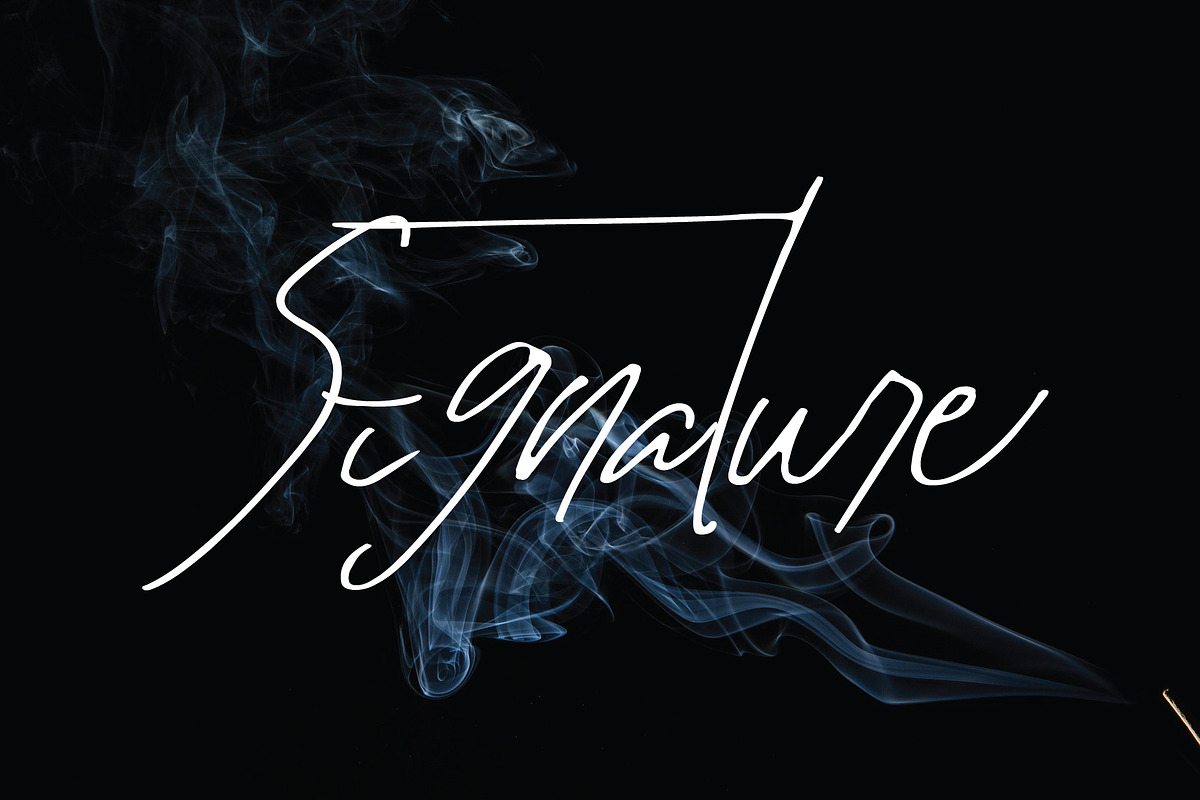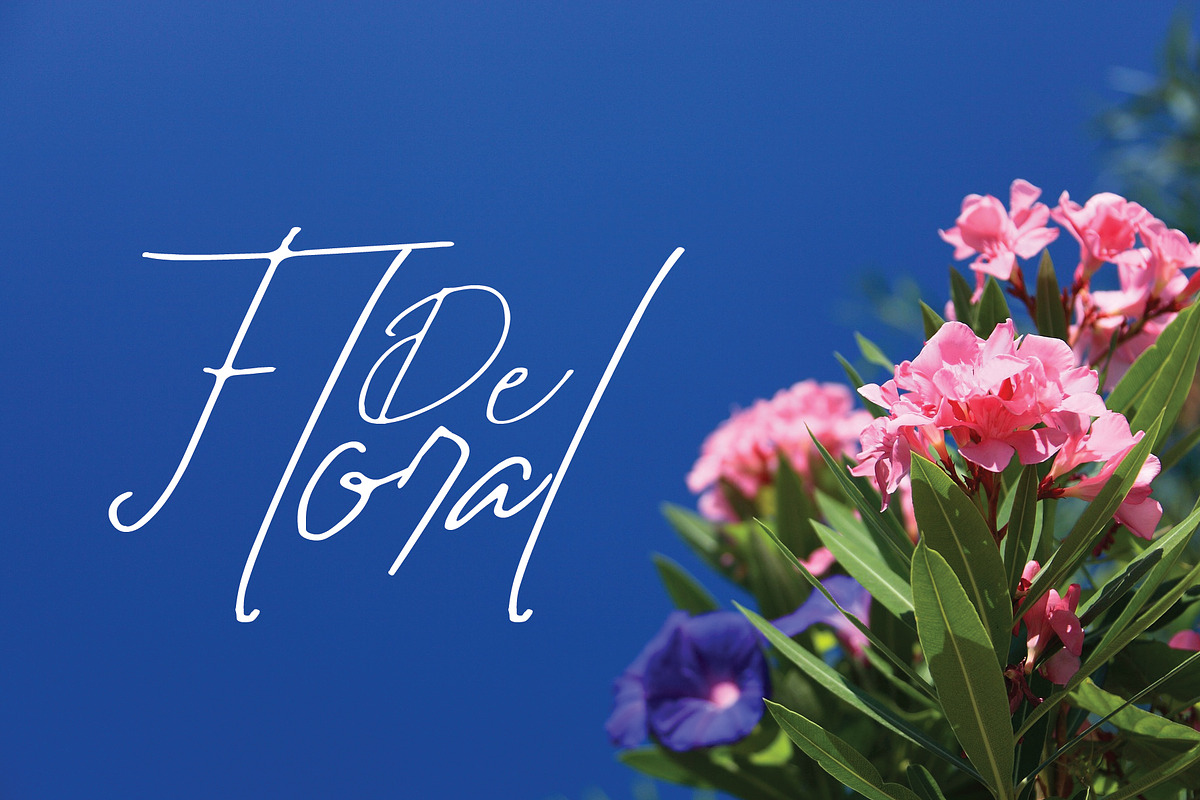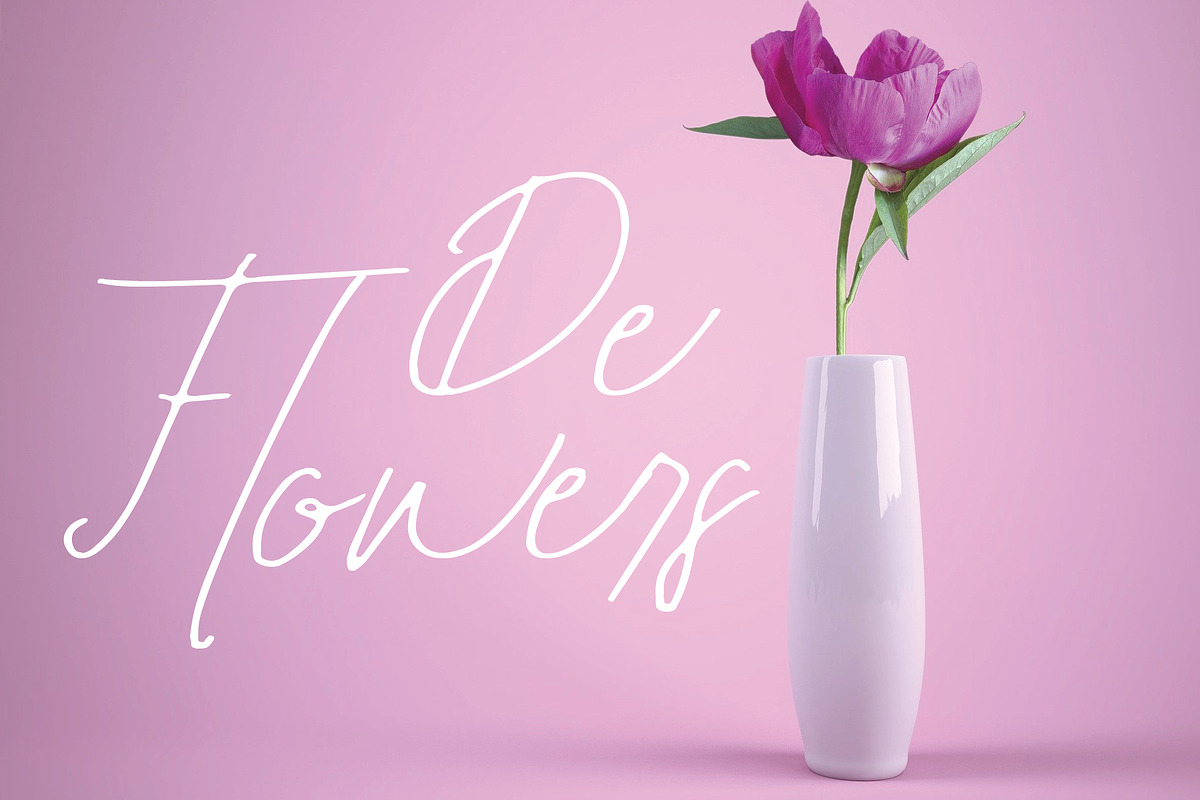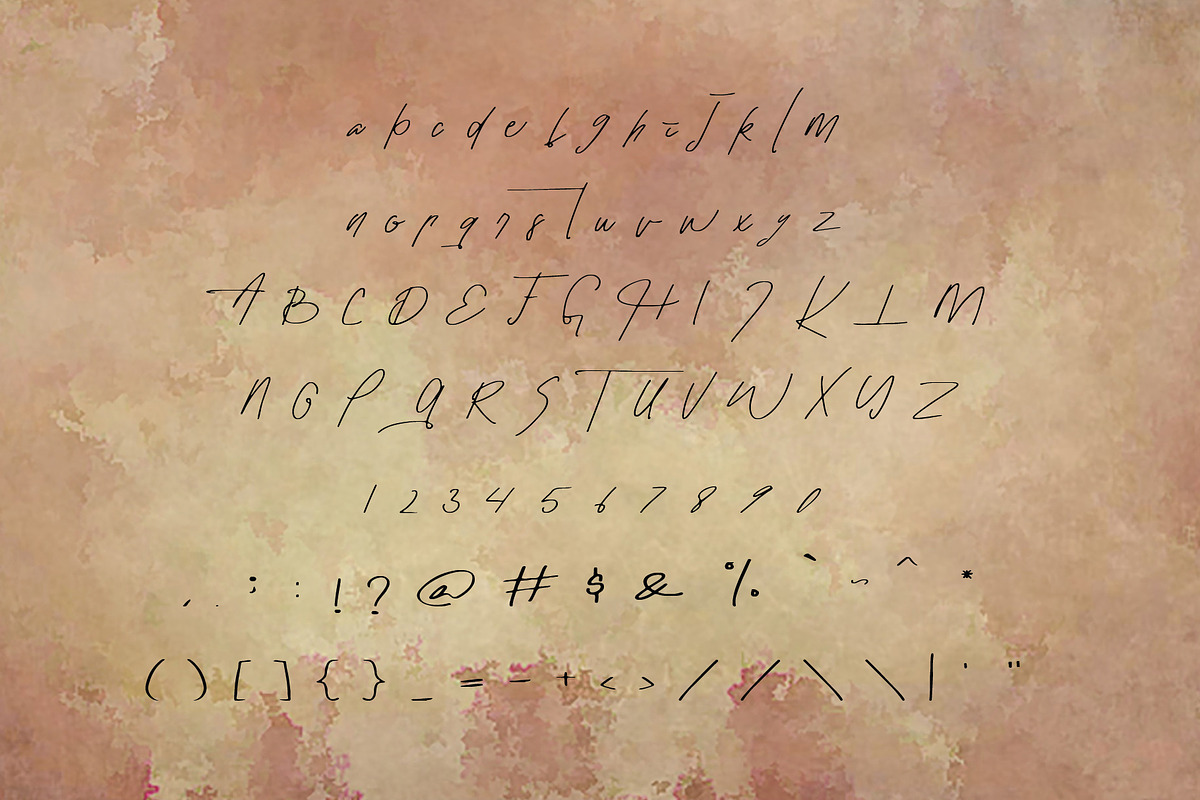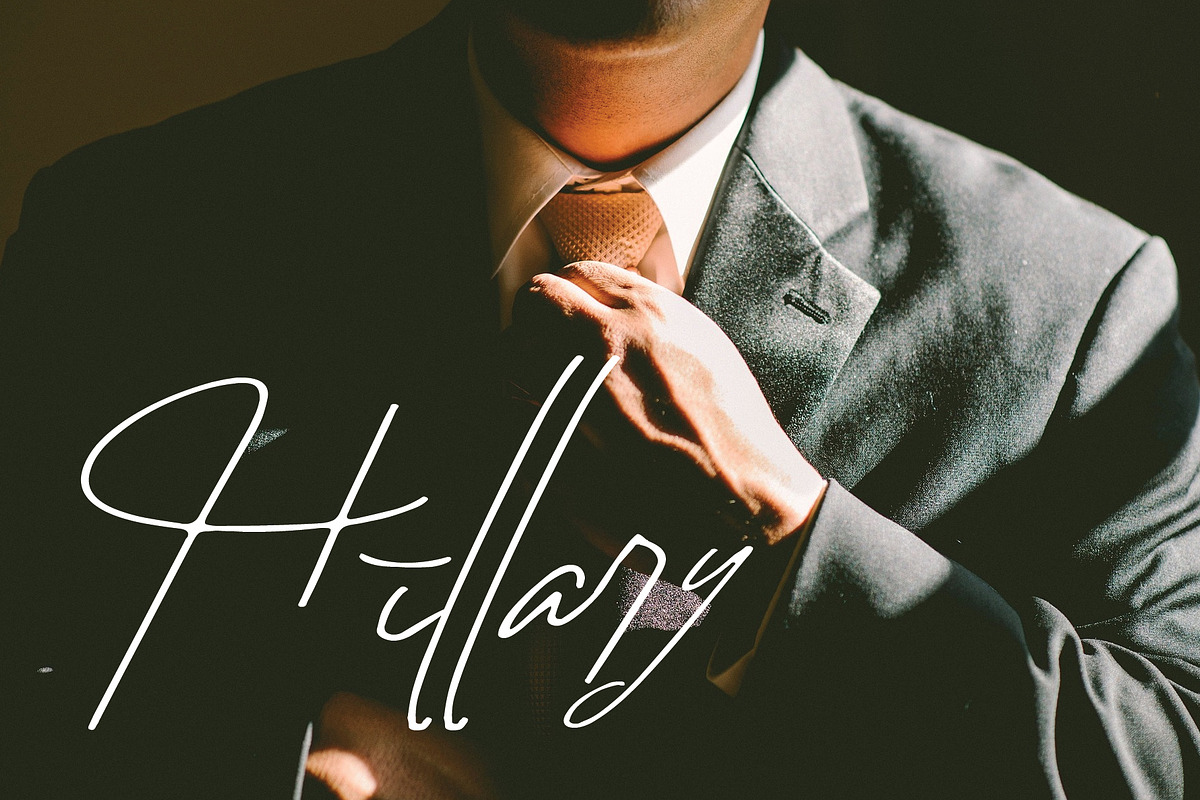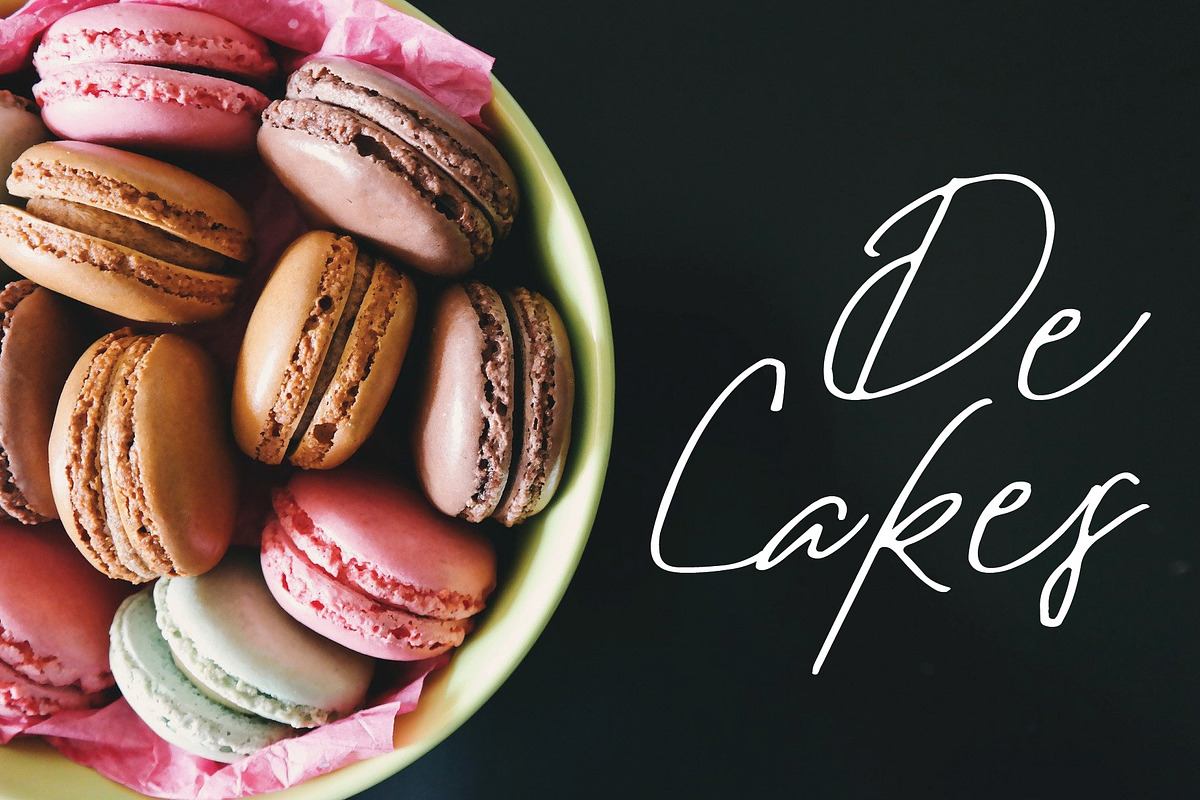
Hillary font
perfect for branding projects, logo, wedding designs, social media posts, advertisements, product packaging, product designs, label, photography, watermark, invitation, stationery and any projects that need handwriting taste.
Why Hillary font is worth a look
Hillary font by Mariyana fits naturally into Branding, posters, packaging, typography.